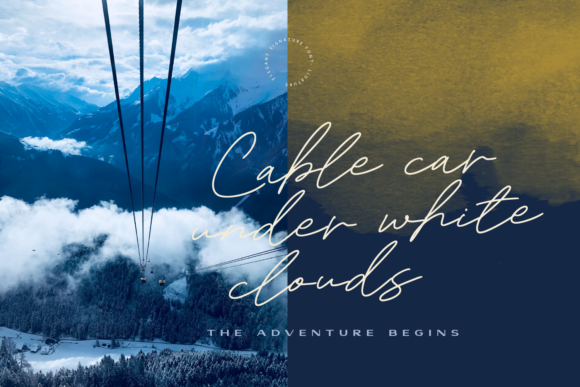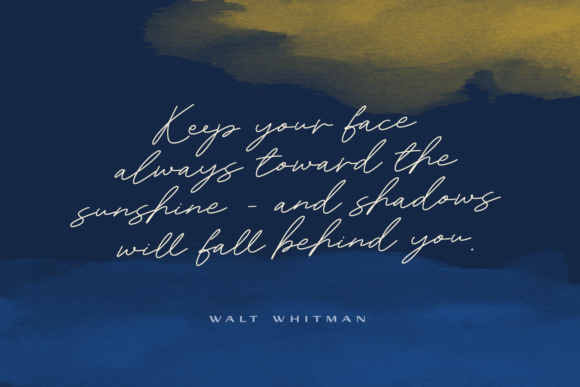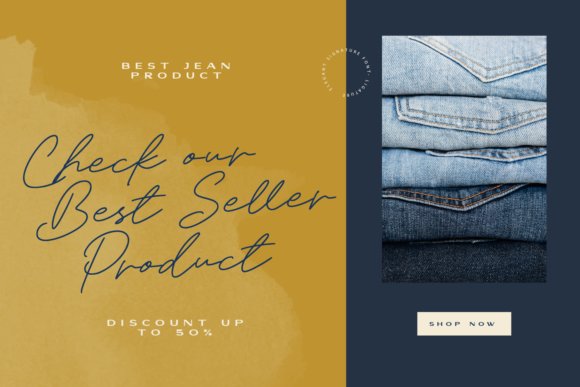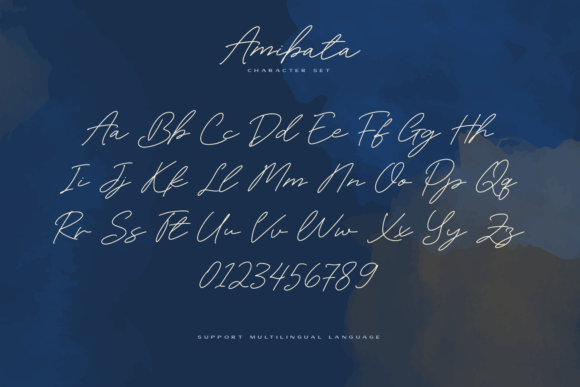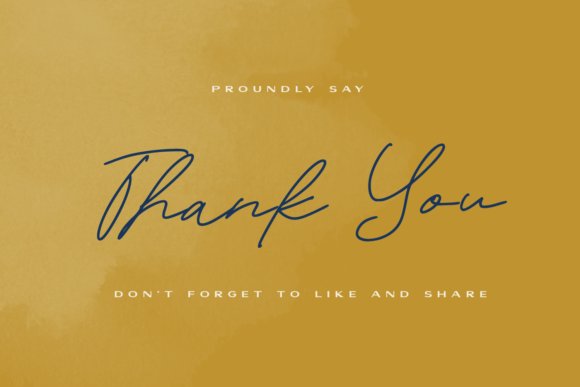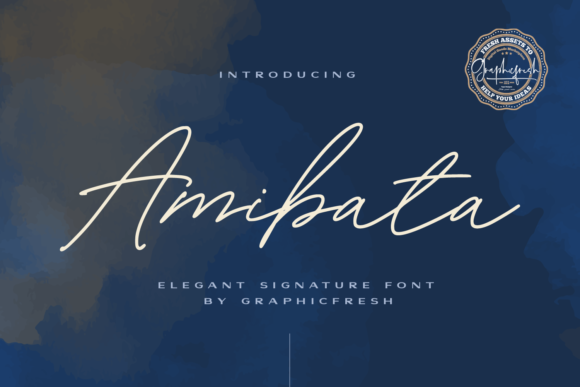
Introducing Amibata Font: The Sweet and Cursive Handwritten Font for Your Design Needs
Are you a designer or crafter looking for a font that can add a touch of sweetness and romance to your projects? Look no further than Amibata Font! This beautiful, cursive handwritten font is perfect for a variety of design ideas and is sure to bring a joyful and romantic feel to your work.
What is Amibata Font?
Amibata Font is a unique and elegant handwritten font that is perfect for designers and crafters who want to add a personal touch to their projects. This sweet and cursive font is designed to be versatile and can be used for a wide range of design ideas, from wedding invitations and greeting cards to blog posts and social media graphics.
Key Features of Amibata Font
- Sweet and Cursive Design: Amibata Font features a beautiful, cursive handwritten design that is sure to add a touch of elegance and sophistication to your projects.
- Versatile and Flexible: This font is perfect for a variety of design ideas, from formal events like weddings and parties to more casual projects like blog posts and social media graphics.
- Easy to Read: Amibata Font is designed to be easy to read, making it perfect for use in body text, headings, and titles.
- Scalable: This font is scalable, meaning it can be used in a variety of sizes without losing its elegance and sophistication.
How to Use Amibata Font in Your Designs
Amibata Font is easy to use and can be incorporated into your designs in a variety of ways. Here are a few ideas to get you started:
- Wedding Invitations: Use Amibata Font to create beautiful and elegant wedding invitations that will set the tone for your special day.
- Greeting Cards: Add a personal touch to your greeting cards with Amibata Font, perfect for birthdays, holidays, and other special occasions.
- Blog Posts: Use Amibata Font to add a touch of elegance and sophistication to your blog posts, making them stand out from the crowd.
- Social Media Graphics: Create eye-catching social media graphics with Amibata Font, perfect for promoting your brand or business.
Why Choose Amibata Font?
There are many fonts to choose from, but Amibata Font stands out from the rest. Here are a few reasons why:
- Unique Design: Amibata Font features a unique and elegant design that is sure to make your projects stand out.
- High-Quality: This font is designed to be high-quality, making it perfect for use in professional designs.
- Easy to Use: Amibata Font is easy to use and can be incorporated into your designs in a variety of ways.
Amibata Font is a beautiful and elegant handwritten font that is perfect for designers and crafters who want to add a touch of sweetness and romance to their projects. With its unique design, versatility, and ease of use, Amibata Font is sure to become a favorite in your design arsenal. So why wait? Download Amibata Font today and start creating stunning designs that will leave a lasting impression!